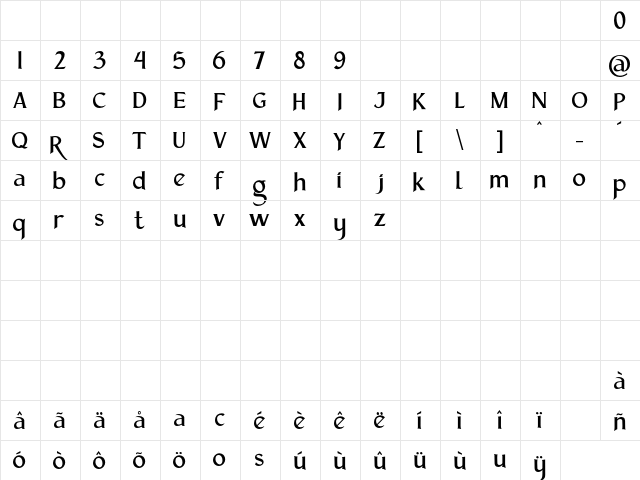
DRAGON FIRE Regular
| Designer | Girinesia 2020 |
Design Context for DRAGON FIRE Typeface
DRAGON FIRE offers clean, dependable letterforms without strong stylistic allegiance, making it a practical choice for designers who need flexibility.